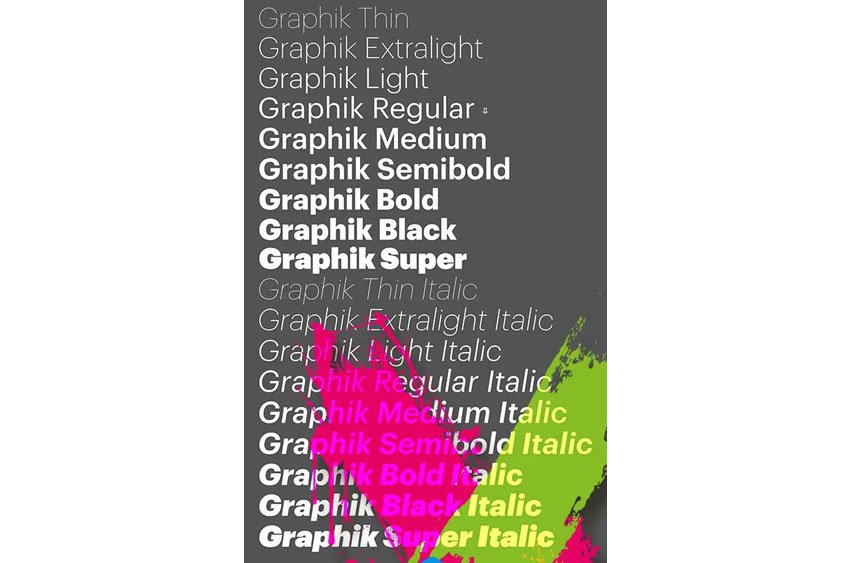
Graphik Family Font Typeface Family, a deliberately vanilla editorial workhorse, remains one of Commercial Type’s most popular families. This hybrid face offsets the round bowls typical of a geometric sans with the architecture and proportions of a European grotesk, without the baggage of more dogmatic, overused sans serifs mired in postwar modernism.
Graphik’s low contrast, open counters, and compact descenders recommend it for use in tight settings like subheads, captions, labels, and running text; human touches like round dots and other details also make it ideal for larger, more impactful uses such as titles, covers, posters, and signage. Over time, the family has matured into an expansive collection of nine weights and eight widths, and has even branched out into a companion slab family: Produkt.
The dominant trend of the mid twentieth century simple sans serifs still reverberates in visual culture. Graphik proves that it is still possible to create something refreshing inspired by this era. Taking cues from the less-known anonymous grotesques and geometric sans serifs, Graphik is perfectly suited for graphic and publication design. Originally designed for Schwartz’s own corporate identity, it was later finished for Conde Nast Portfolio and then expanded for Wallpaper* and later T, the New York Times Style Magazine.